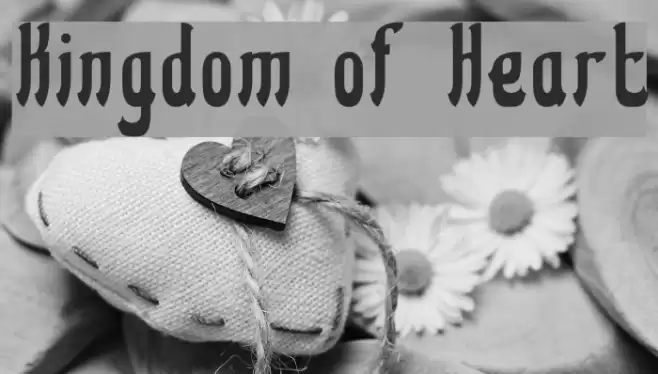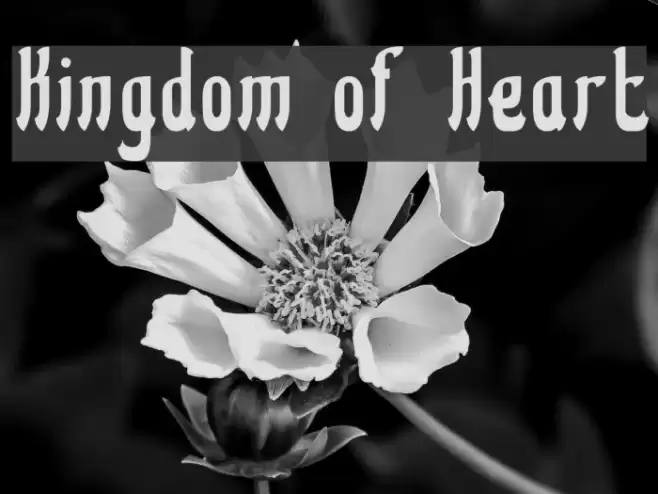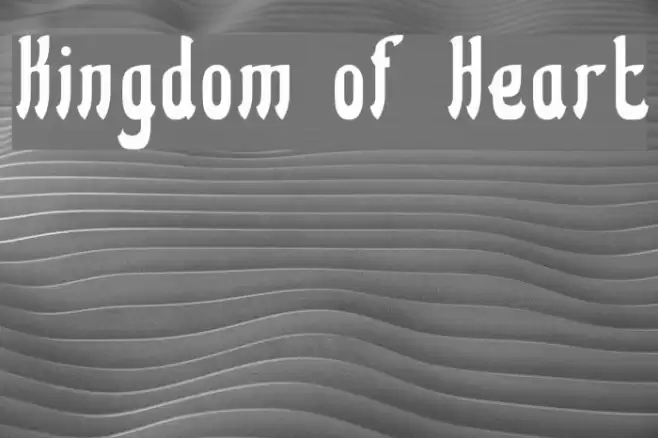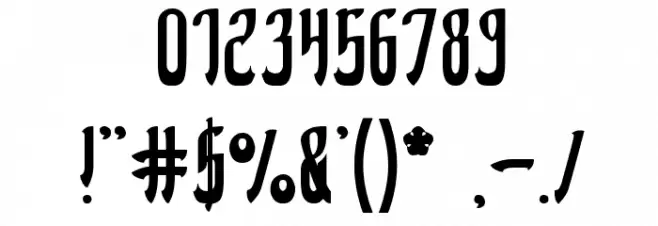
Kingdom of Heart Font
Kingdom of Heart Description
This font features a bold and dramatic style with a distinct medieval or gothic influence. The uppercase letters are tall and narrow, with sharp, angular serifs that give them a commanding presence. The lowercase letters maintain this angularity but are more compact, providing a balanced contrast. Numbers and special characters follow the same stylistic cues, ensuring consistency across all glyphs. The overall design is reminiscent of traditional blackletter typefaces, yet it incorporates modern elements that make it suitable for contemporary use.
A bold, gothic-inspired font with sharp, angular serifs and a medieval flair from Uncategorized fonts.
- Proposed Projects: Ideal for projects requiring a historical or fantasy theme, such as book covers, movie posters, or themed event invitations.
- Overall Style: Vintage